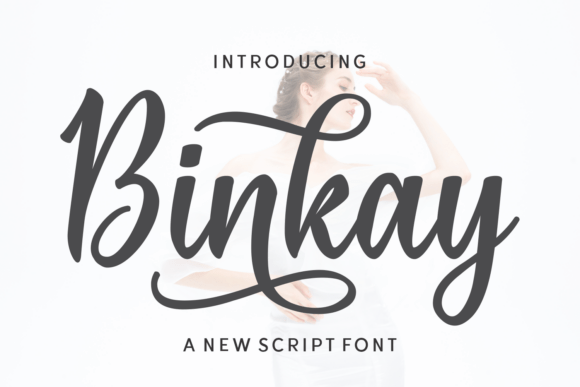
The Binkay Font: A Stylish Script for Creative Projects
I still remember the struggle of working on a fashion branding project, searching for the perfect font that could balance boldness and beauty. My client wanted a script font that would make their brand stand out, but not look too over-the-top. After hours of browsing through font libraries, I stumbled upon Binkay – a stylish script font that instantly caught my attention. With its dynamic strokes and swashy accents, it was love at first sight! 💕
An Honest Review of Binkay
What I Love About Binkay ✨
- 💫 Binkay’s bold yet elegant strokes make it perfect for fashion branding, blog headers, or promotional posters.
- 🎨 The font’s dynamic strokes and swashy accents add a touch of sophistication and creativity to any design.
- 📚 Binkay supports OpenType features, allowing for a range of stylistic alternates and glyphs to experiment with.
- 👍 The font is highly legible, even in smaller sizes, making it versatile for various design applications.
While Binkay is an amazing font, there are a few things to keep in mind:
- 🤔 Some users might find the font’s boldness overwhelming for certain design projects, such as body text or captions.
- ⚠️ Binkay’s swashy accents can be a bit tricky to work with, especially for beginners, to achieve the desired visual balance.
The Story Behind Binkay
Binkay was designed by a team of typographers who aimed to create a font that would balance boldness and beauty. Inspired by traditional calligraphy and modern digital design, Binkay was crafted to be versatile and attention-grabbing. Although the design team remains anonymous, their work has certainly made an impact on the design community! 🎉
Q: What type of projects is Binkay best suited for?
A: Binkay is perfect for fashion branding, blog headers, promotional posters, and any design project that requires a bold yet elegant script font.
Q: Does Binkay support OpenType features?
A: Yes, Binkay supports OpenType features, including stylistic alternates, glyphs, and swashy accents, allowing for a range of creative possibilities.